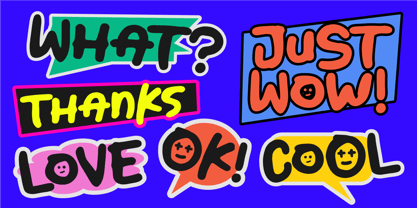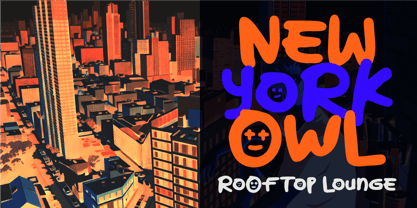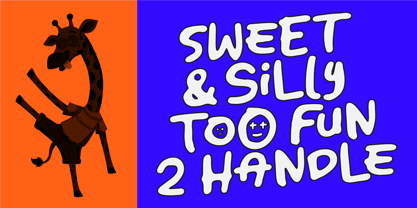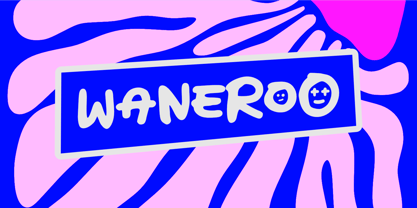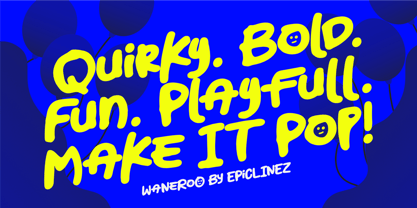
Waneroo
by Epiclinez
The Waneroo Font Family was designed by Aldy Sidik and published by Epiclinez. Waneroo contains 1 styles. More about this family
Waneroo is a playful, quirky display font bursting with personality and charm. Designed to bring joy into every letter, Waneroo features bouncy shapes, uneven curves, and a lively rhythm that feels spontaneous and full of life. Each character dances with its own unique energy, making your text feel expressive, fun, and impossible to ignore. Perfect for projects that need a bold and cheerful voice, Waneroo shines in kids-themed designs, toy packaging, comic titles, playful branding, YouTube thumbnails, posters, and social media graphics. Whether you're creating something silly, energetic, or simply eye-catching, this font delivers a strong visual impact with a lighthearted twist. With its handcrafted feel and quirky attitude, Waneroo adds a sense of fun and creativity to any design—turning ordinary words into a vibrant visual experience.